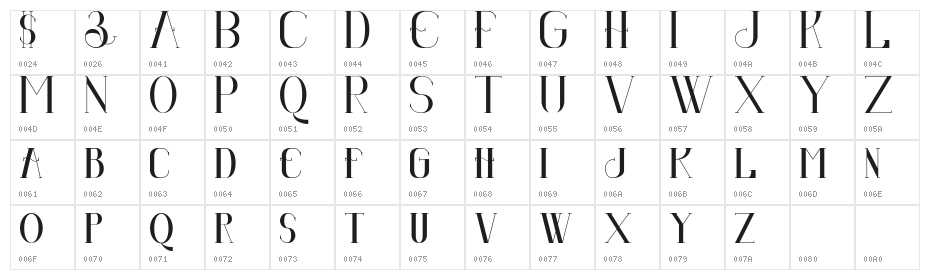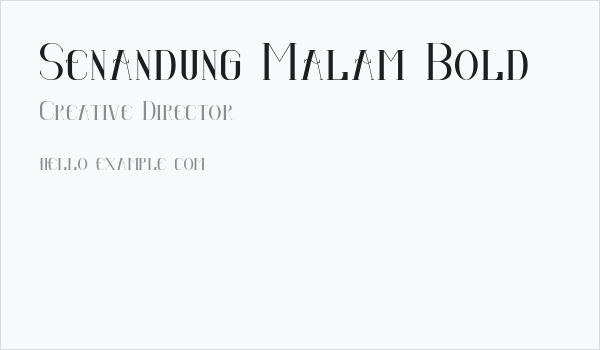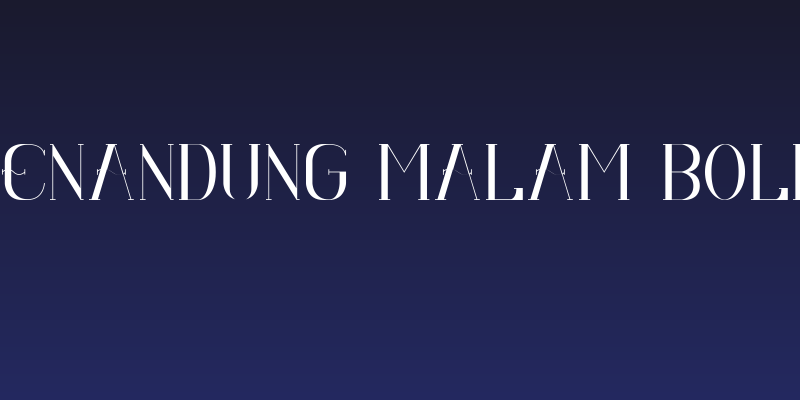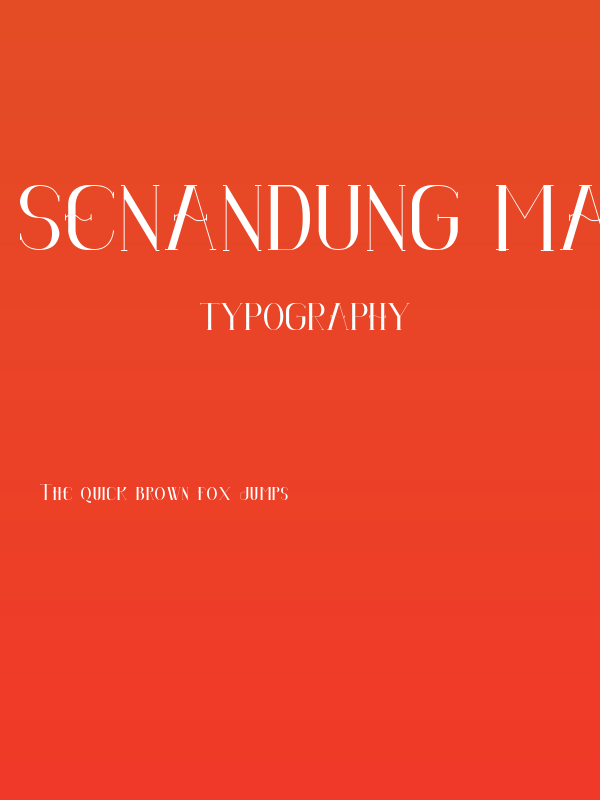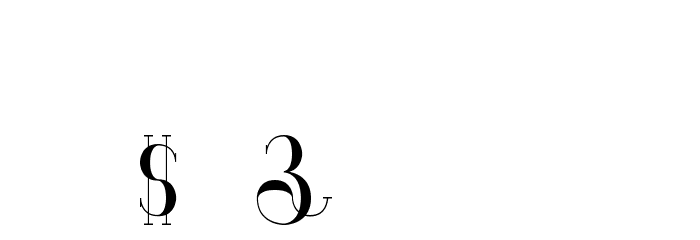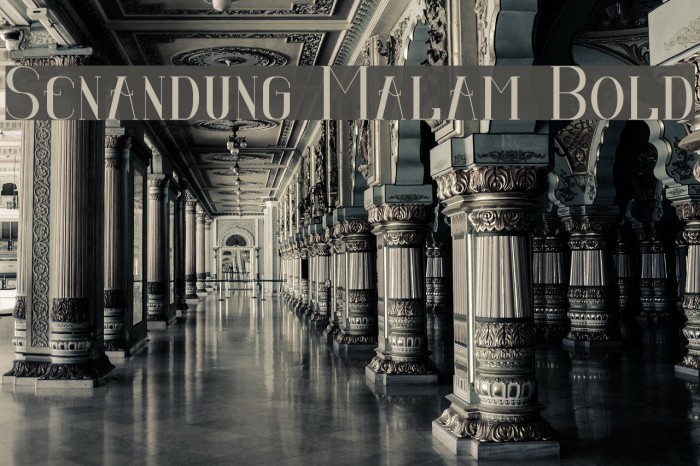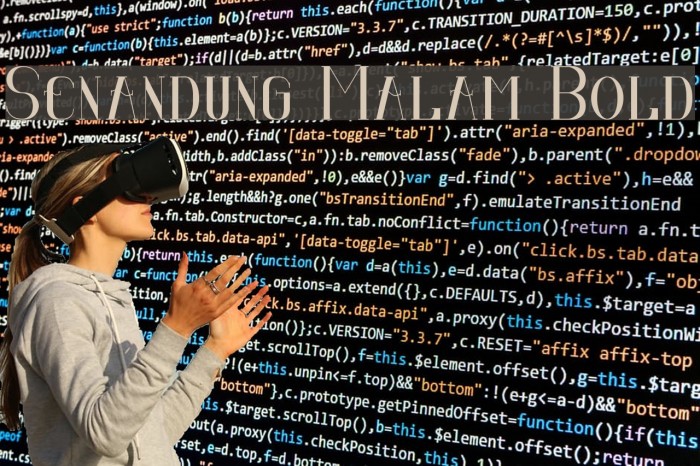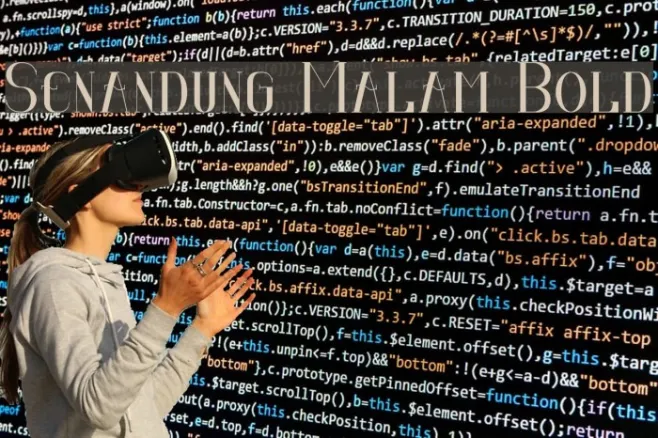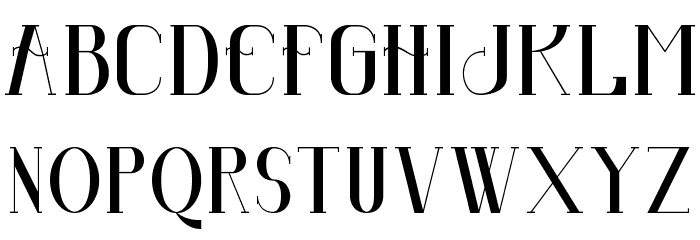
Senandung Malam Bold Font
Senandung Malam Bold Description
This font features a unique blend of modern and classic elements, characterized by its high contrast between thick and thin strokes. The uppercase letters exhibit a distinct elegance with elongated serifs and a sophisticated flair, while the lowercase letters maintain a consistent style that complements the uppercase. The numerals and special characters are designed with the same attention to detail, ensuring a cohesive look throughout. The font's overall aesthetic is both striking and refined, making it suitable for a variety of design applications.
| Proposed Projects | Ideal for luxury branding, editorial design, and high-end packaging. |